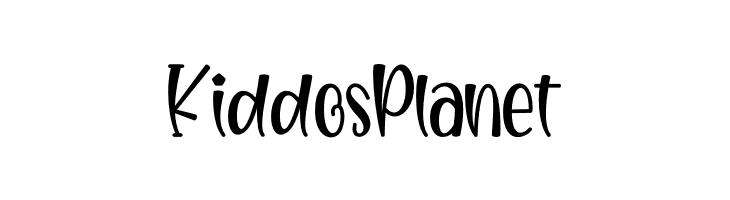
A playful, handwritten script font with a whimsical and casual style.
A playful, handmade-style font with bold, rounded letterforms.
A playful, handwritten font with a lively and informal style.
A playful, handwritten font with a whimsical and childlike charm.